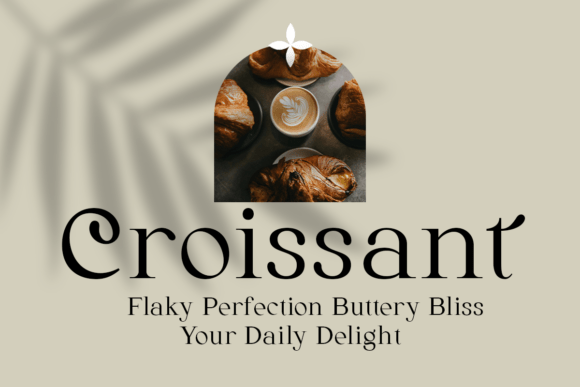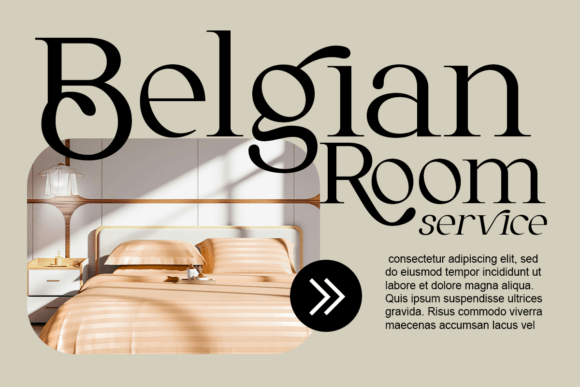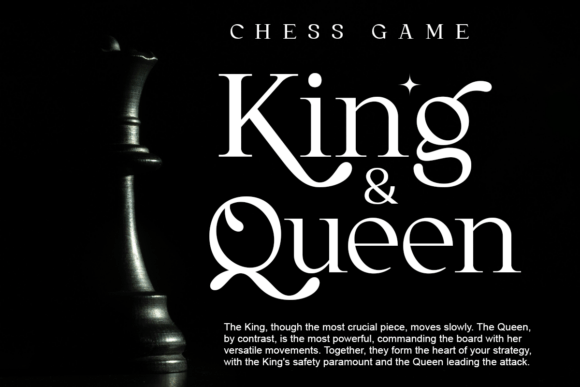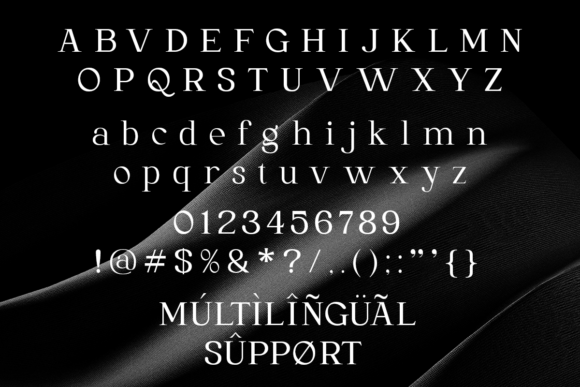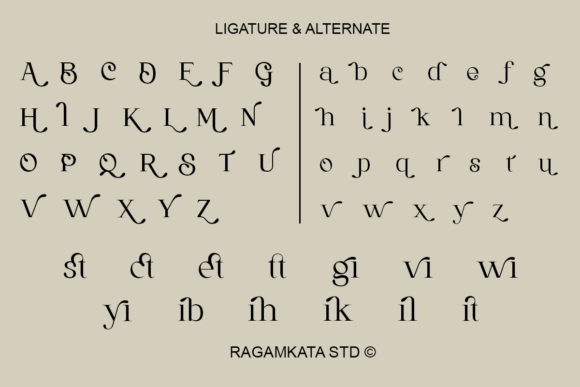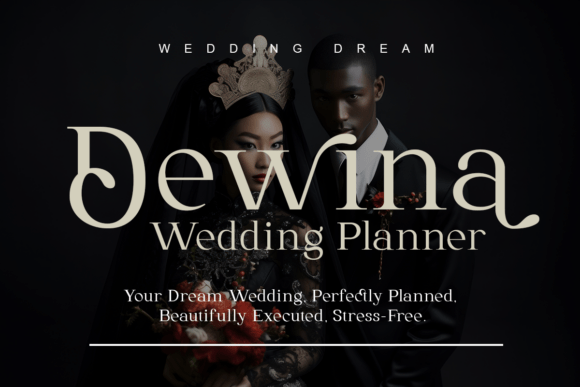
Introduction to Lacture Regular Font Font
Fonts play a crucial role in design, and the Lacture Regular Font font is a typeface that brings both character and versatility to any project. Whether you’re working on a branding project, a website, or a print design, the Lacture Regular Font font offers a unique style that can elevate your work.
Lature Typeface is a refined and elegant serif font crafted to elevate your most sophisticated design projects.
With its graceful curves, high-contrast strokes, and distinctive ligatures, Lature exudes timeless beauty and prestige Perfectly suited for editorial layouts, luxury branding, fashion headlines, high-end packaging, invitations, and more, Lature adds a touch of classic sophistication to any composition.
Key Features of Lacture Regular Font Font
Why Choose Lacture Regular Font Font?
The Lacture Regular Font font is more than just a typeface – it’s a design tool that helps you communicate your message with style and clarity. Its unique character set and versatile design make it suitable for a wide range of applications, from elegant invitations to bold headlines.
With its carefully crafted letterforms and balanced proportions, the Lacture Regular Font font ensures readability and visual appeal across all mediums.
What makes Lacture Regular Font font special?
The Lacture Regular Font font stands out with its unique design, exceptional readability, and versatility across various design applications.